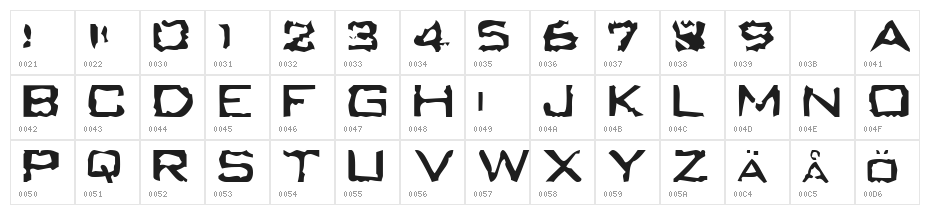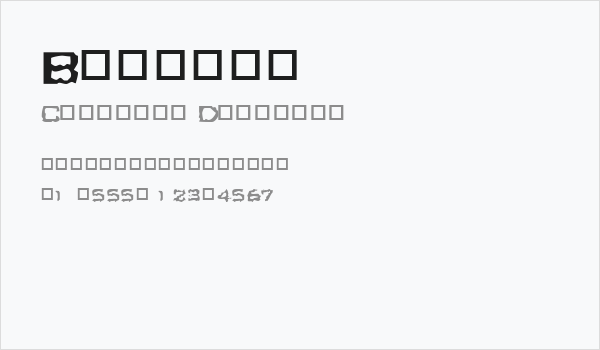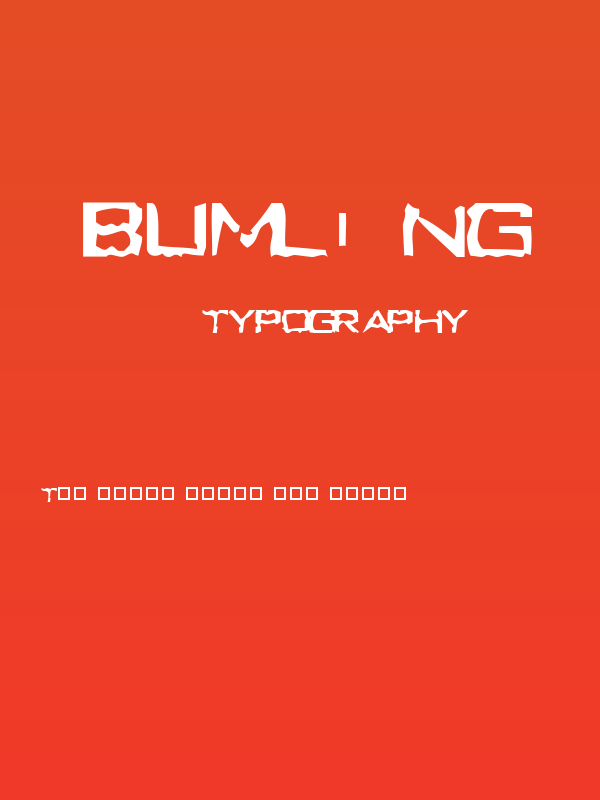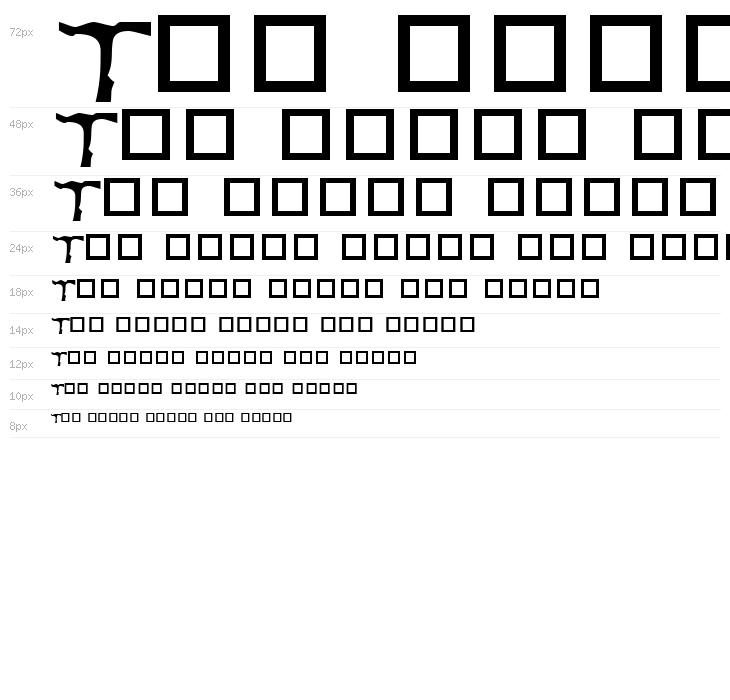
Bumling Font
Bumling Description
This font exhibits a rugged and distressed style, characterized by its irregular and jagged edges. The uppercase letters have a bold presence with a unique, almost eroded texture that gives them a weathered appearance. The numbers follow the same aesthetic, maintaining consistency across the character set. The font's distinctive look makes it stand out, ideal for projects that require a raw, edgy feel. Its decorative nature suggests it is best used in contexts where a strong visual impact is desired, such as in posters, album covers, or branding for products that aim to convey a sense of toughness or authenticity.
| Proposed Projects | Ideal for posters, album covers, edgy branding, or any project needing a raw, impactful look. |